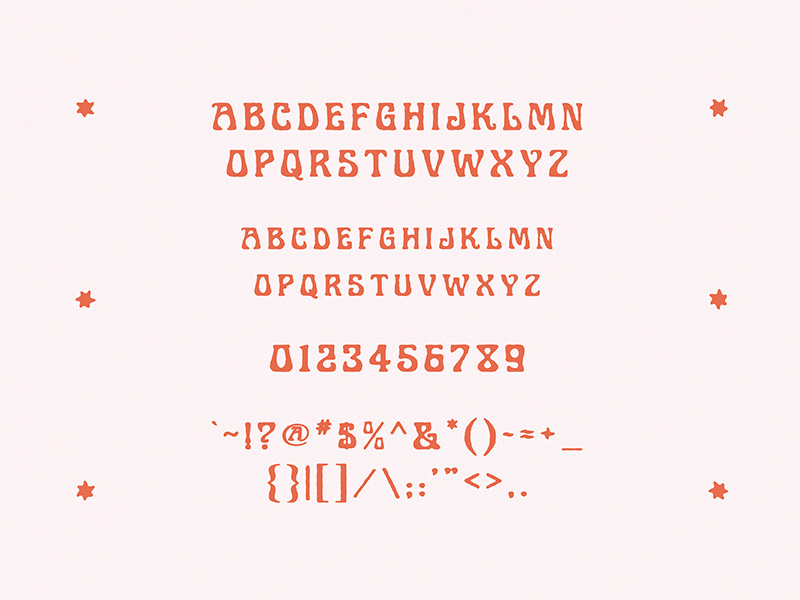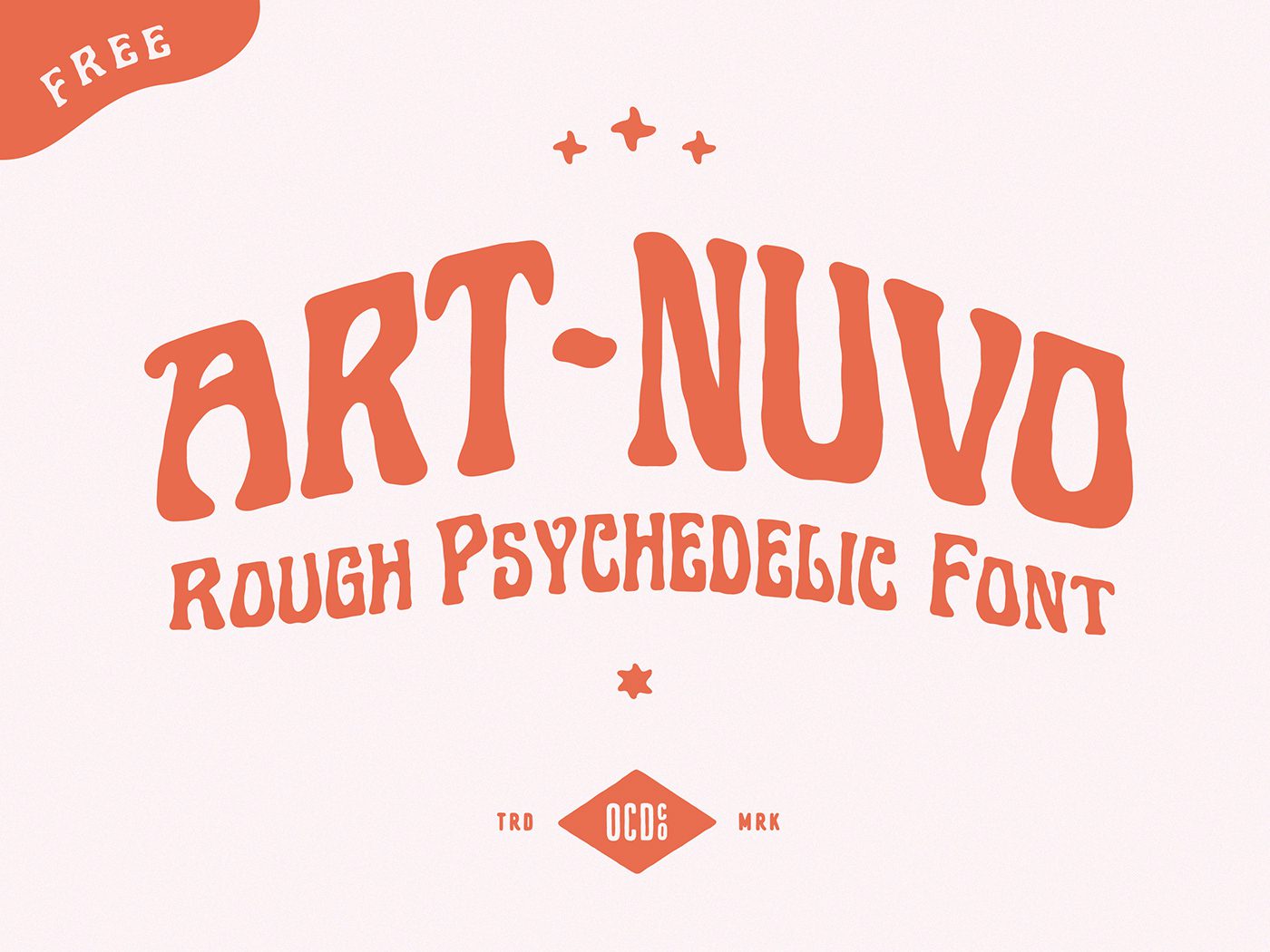
Art Nuvo: Free Display Font
Art Nuvo Free Display Font is a rough psychedelic font by Phil MacIsaac. By using this font, you can add some trippy vibe to your work that is best on vintage theme design. The font is suitable for logo, prints, event poster and so much more!